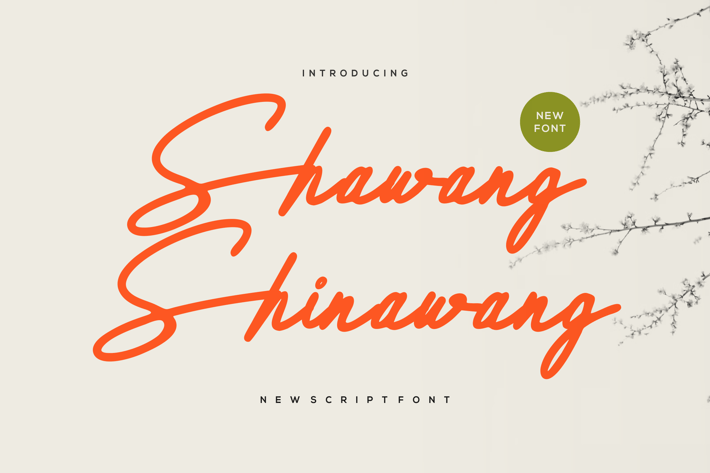
Shawang Shinawang - New Script Font
Shawang Shinawang - New Script Font is a unique font. Can make it easier to convey the message in your design. Use for awesome display, labeling, clothing, movie sceen, poster, movie title, gigs, album covers, logos, and much more.